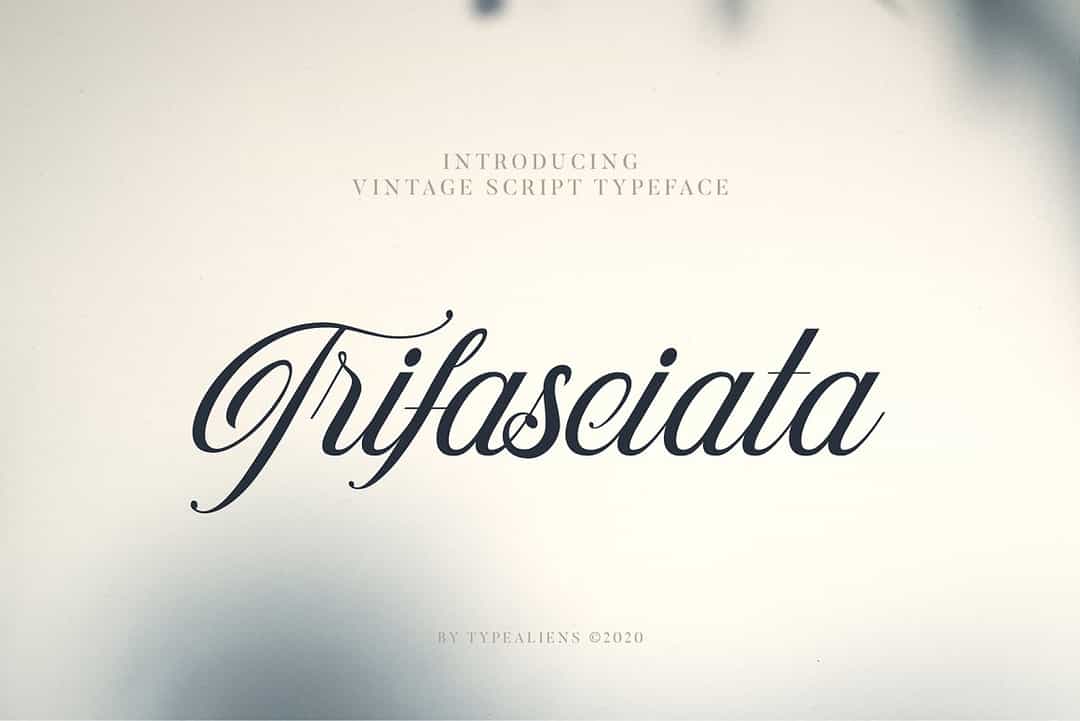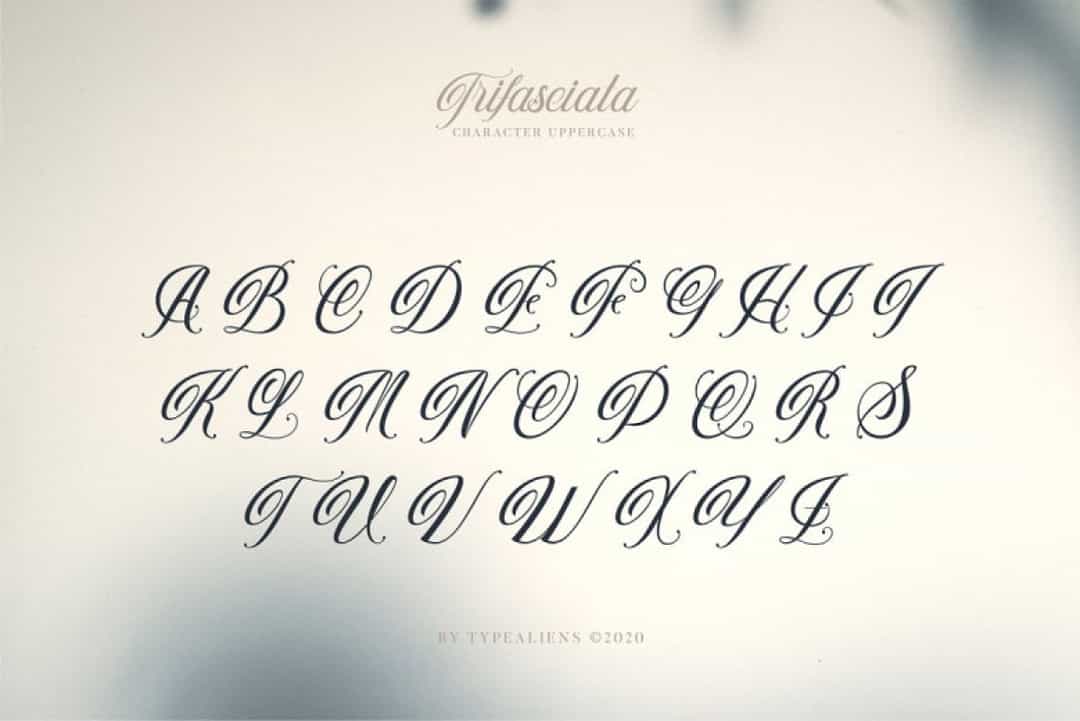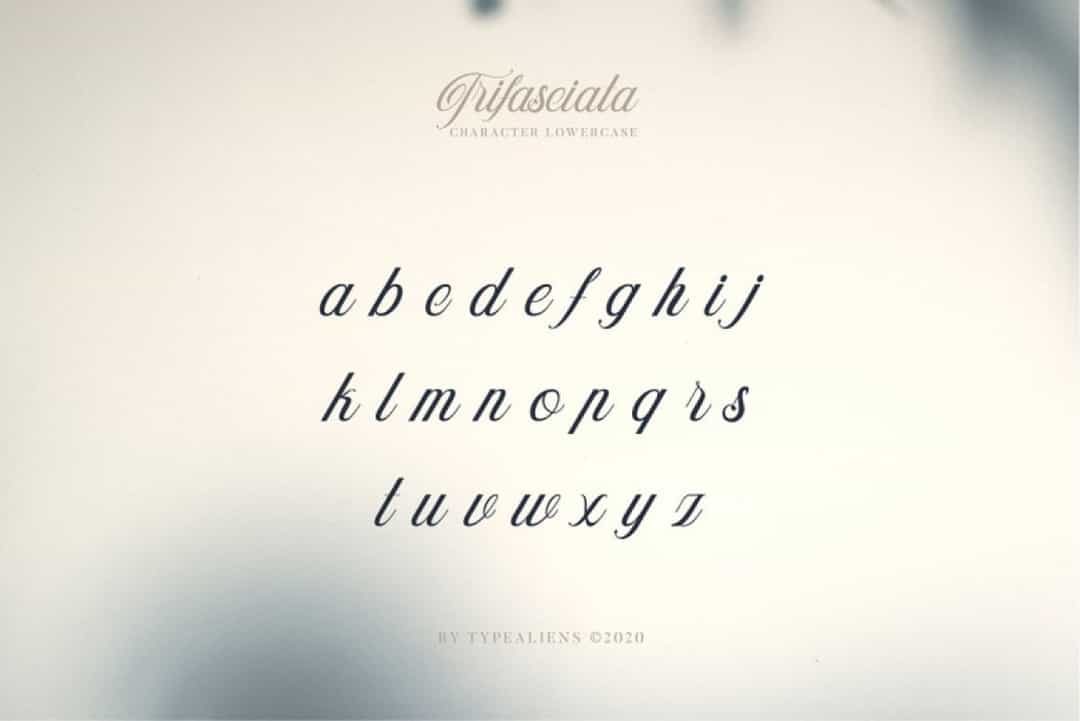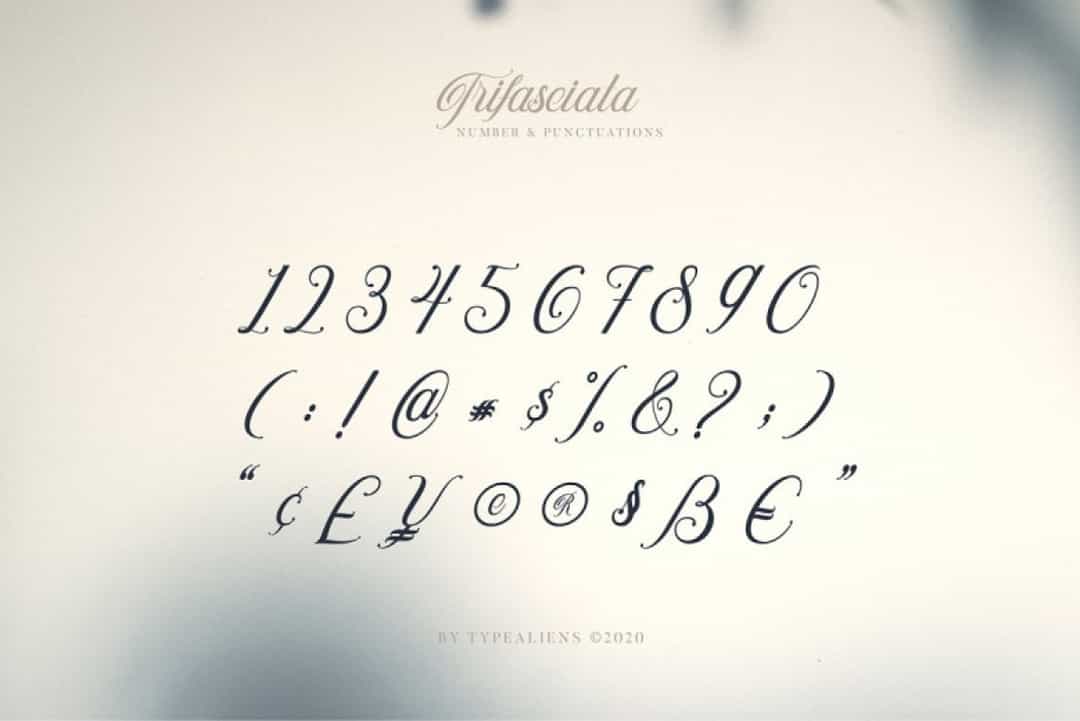
Trifasciata is an elegant script font for calligraphy that makes for stunning wedding invitations or logos, as well as hand lettering techniques to alter its basic design into something unique and beautiful. Perfect for contemporary classic vintage and traditional designs!